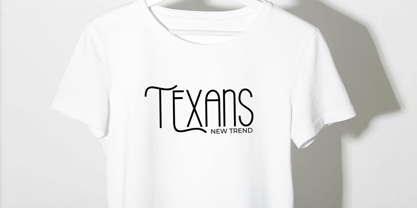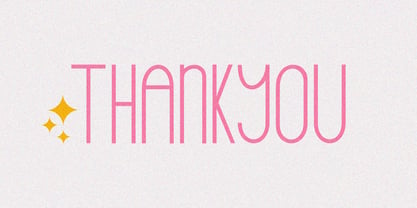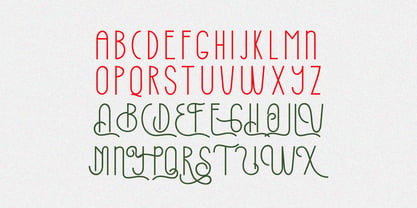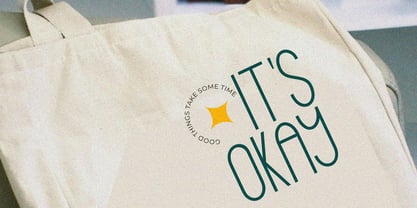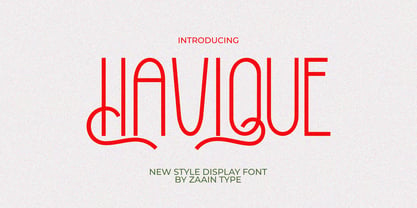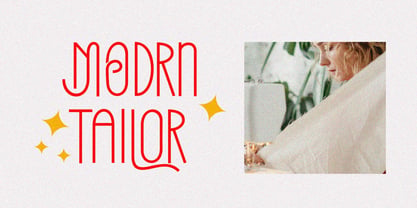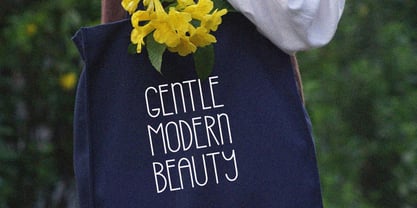
Havique
by Zaain Type
The Havique Font Family was designed by Ju Naen and published by Zaain Type. Havique contains 2 styles and family package options. More about this family
Havique is a modern sans serif font that blends simplicity of form with a subtle touch of elegance. Designed with balanced proportions and clean lines, Havique delivers a professional yet stylish appearance, making it suitable for branding, editorial work, product packaging, and digital design. Its neat and highly legible characters allow for flexible use at various sizes, from striking headlines to refined supporting text. With a strong contemporary feel, Havique brings a sense of confidence, minimalism, and sophistication to any design
Designers: Ju Naen
Foundry: Zaain Type